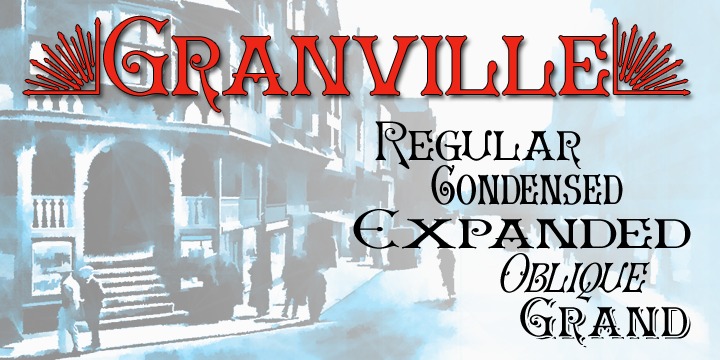
Granville, is inspired by traditional British (and transatlantic) shop signage. It’s an elaborate confection, drawing on Roman and Blackletter influences and is ideal to give any project an instant Victorian feel.
Granville is offered in Regular, Condensed and Expanded widths as well as an oblique form and a yet more decorative ‘Grand’ form. These faces are especially suitable for posters, period advertising, Chapter headings and signage.